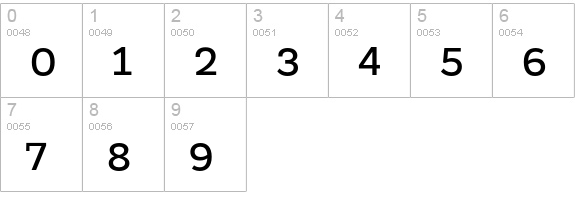
Newslab Medium is a balanced, medium-weight variant in the Newslab typeface family \xE2\x80\x94 well suited to sub-headlines, navigation, and balanced editorial work.
Newslab Medium font is a stylish and modern typeface that exudes sophistication and elegance. Its clean lines and balanced proportions make it perfect for a wide range of design projects, from editorial layouts to branding and packaging. The medium weight of this font strikes a perfect balance between readability and impact, making it a versatile choice for both headlines and body text. What sets Newslab Medium font apart is that it is available for free download at FontsMarket.com. This means designers and creatives can easily access this high-quality font without any cost, allowing them to enhance their projects with a professional and polished look. Whether you're working on a website, print materials, or any other design project, Newslab Medium font is sure to elevate your work with its timeless appeal and contemporary flair.